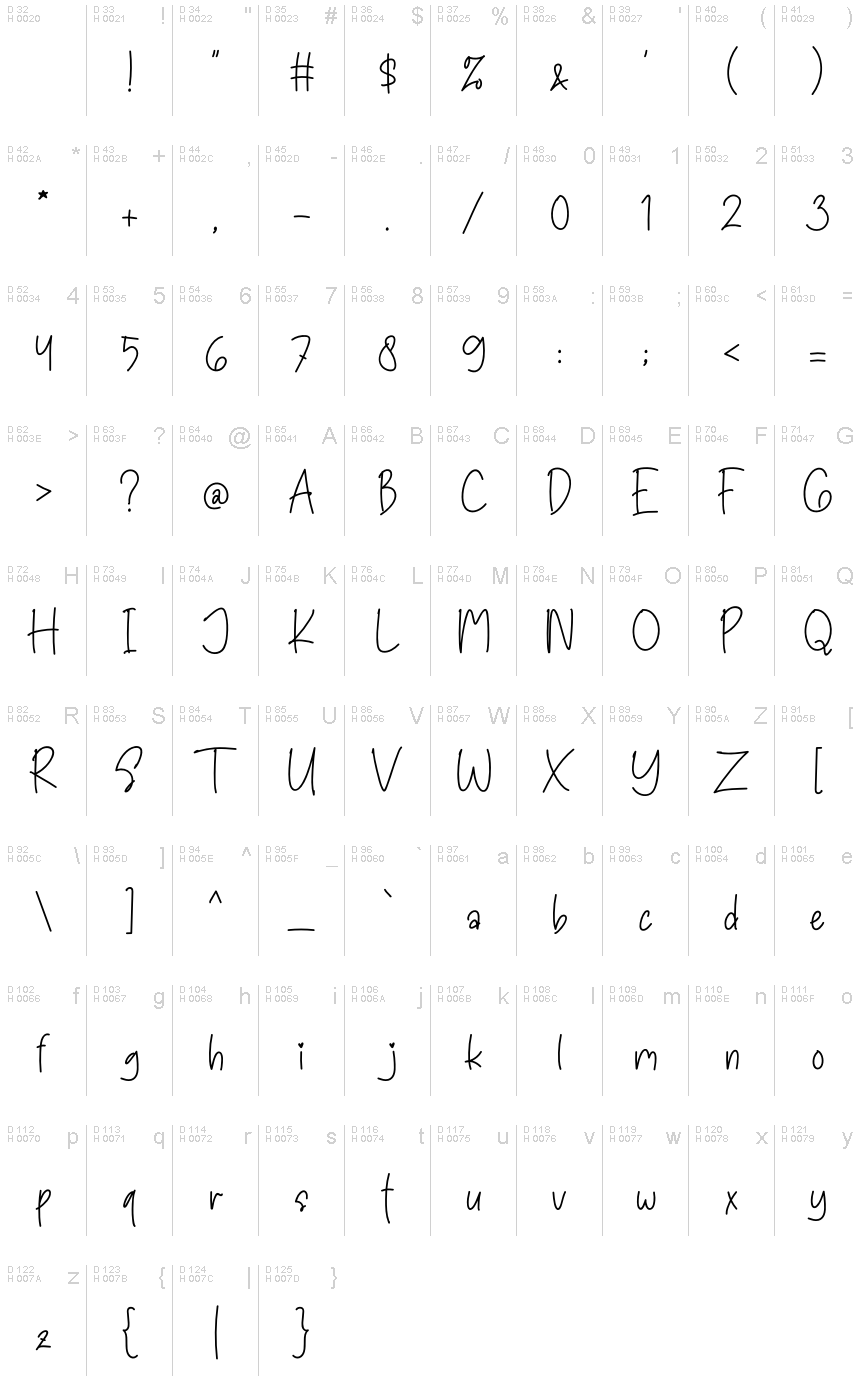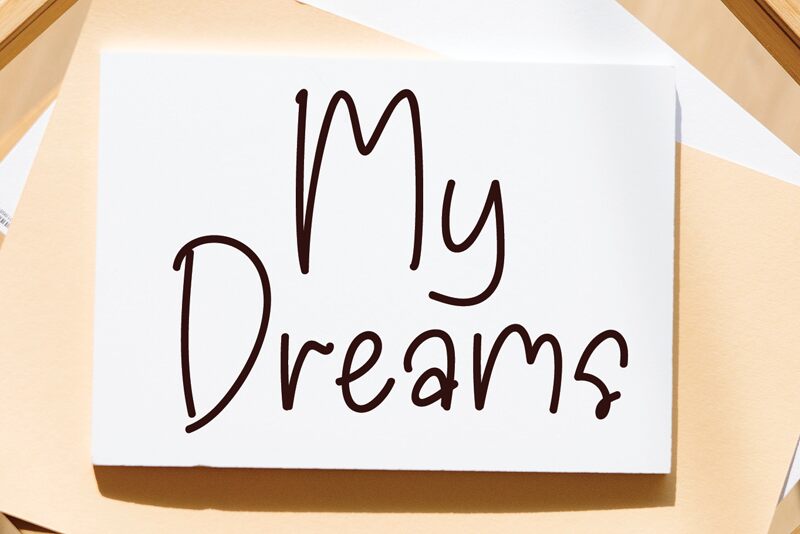
My Dreams
My Dreams font, designed by Behind the Ink, embodies a breezy elegance with its thin-lettered, handwritten style. Its light strokes create an airy feel that effortlessly captures a sense of whimsy and creativity. This contemporary typeface stands out for its playful curves and organic flow, making it ideal for projects that aim to convey warmth and approachability.
Perfect for invitations, personal branding, or creative digital content, My Dreams brings a touch of artistry to any design. Its unique charm can transform ordinary text into standout pieces that resonate with audiences. Whether used in promotional materials or artistic endeavors, this font is sure to leave a lasting impression and inspire the imagination.